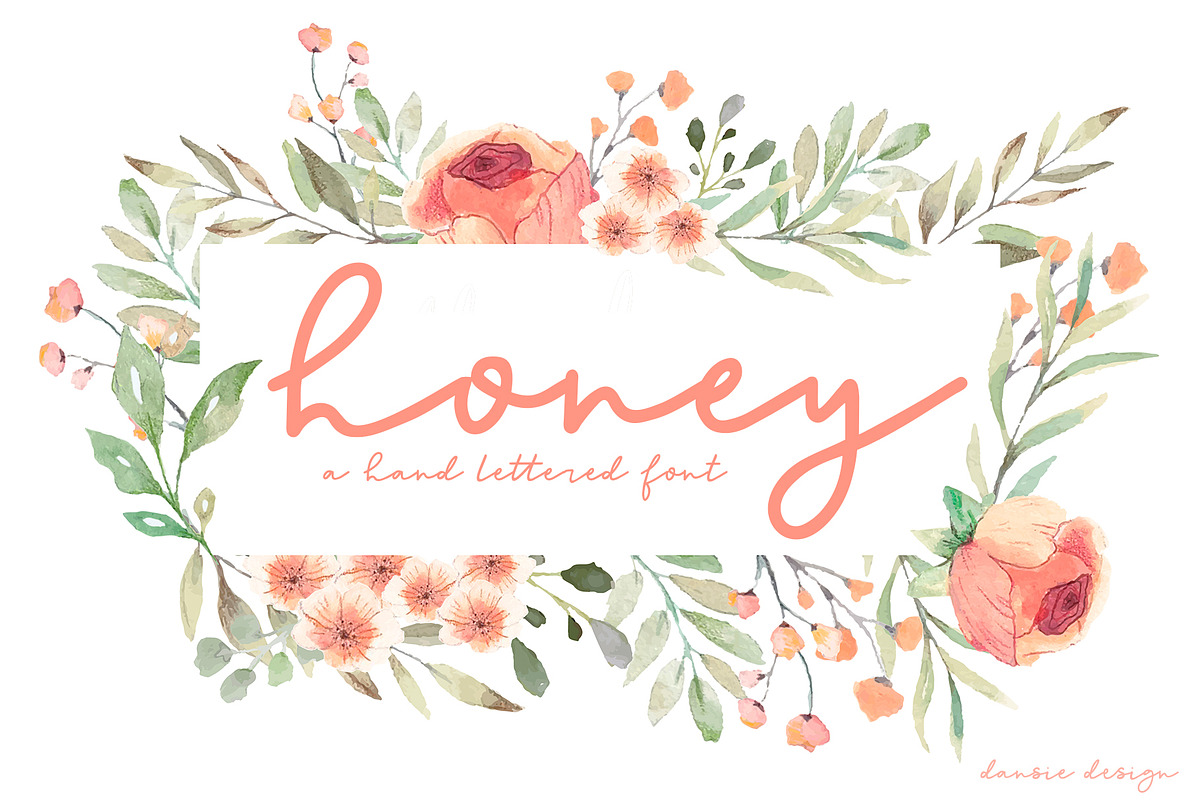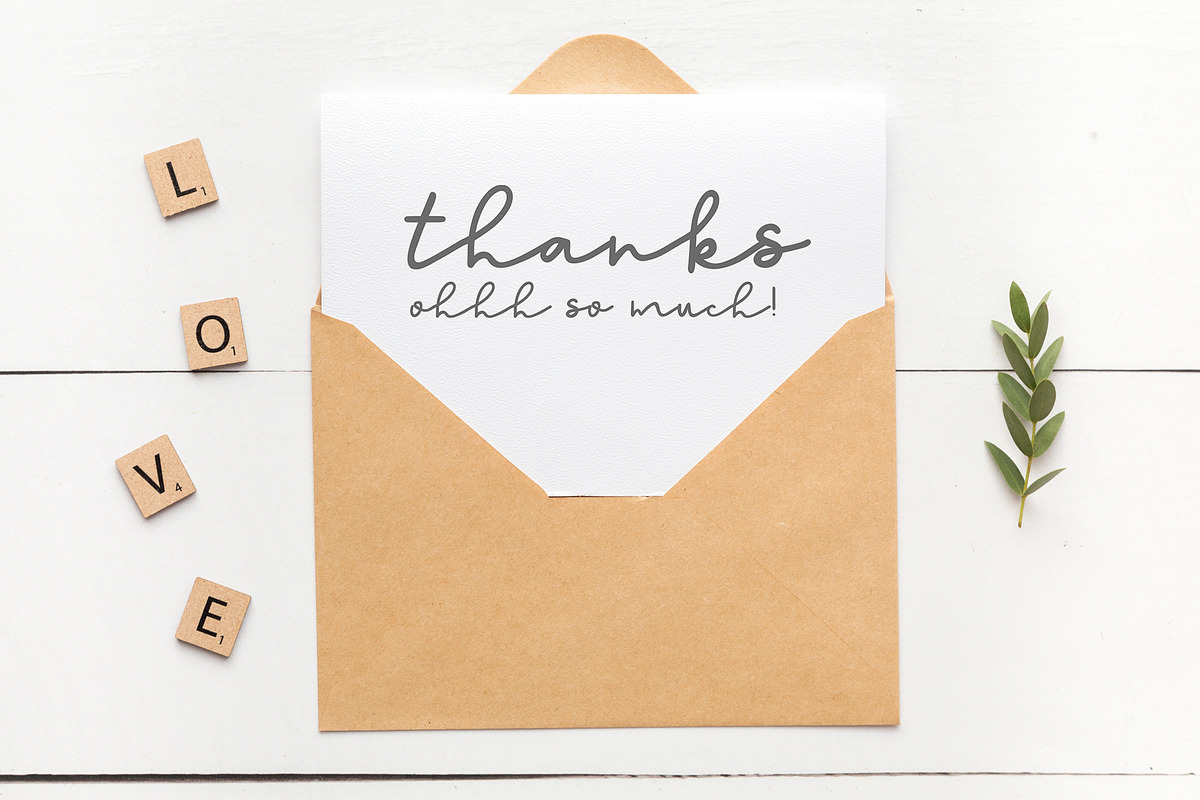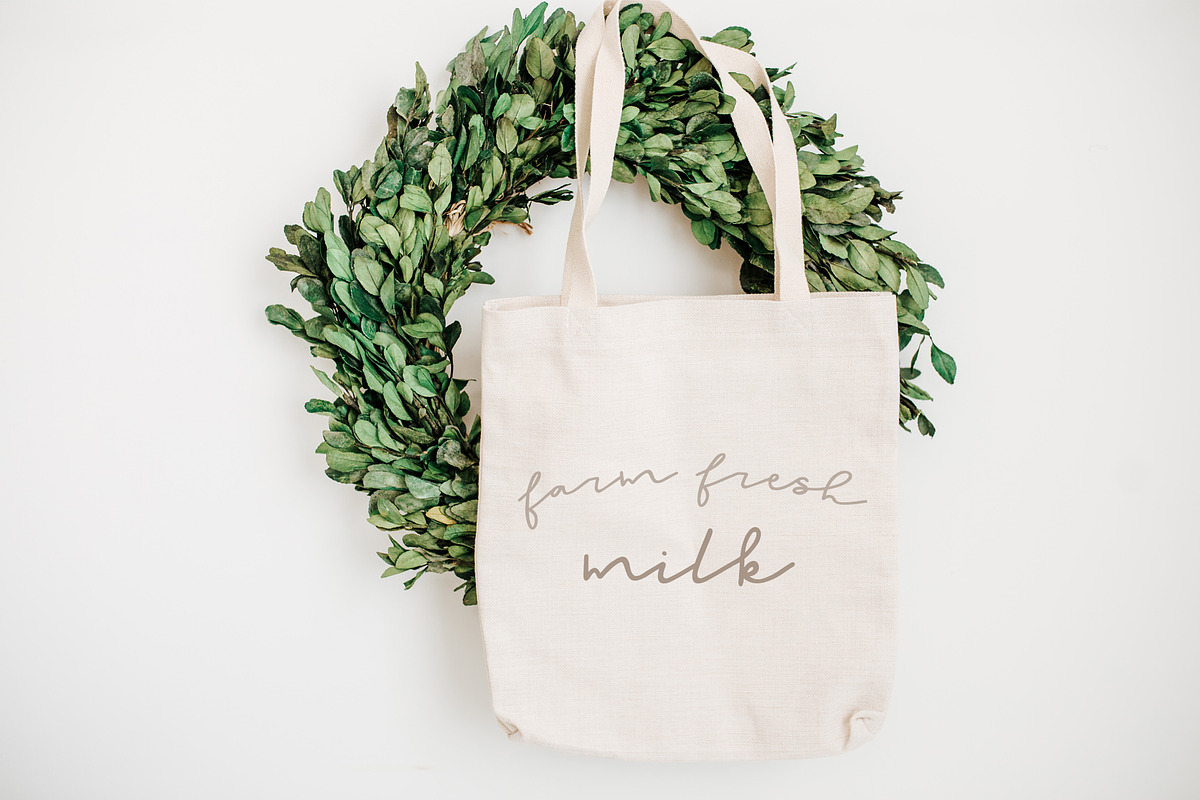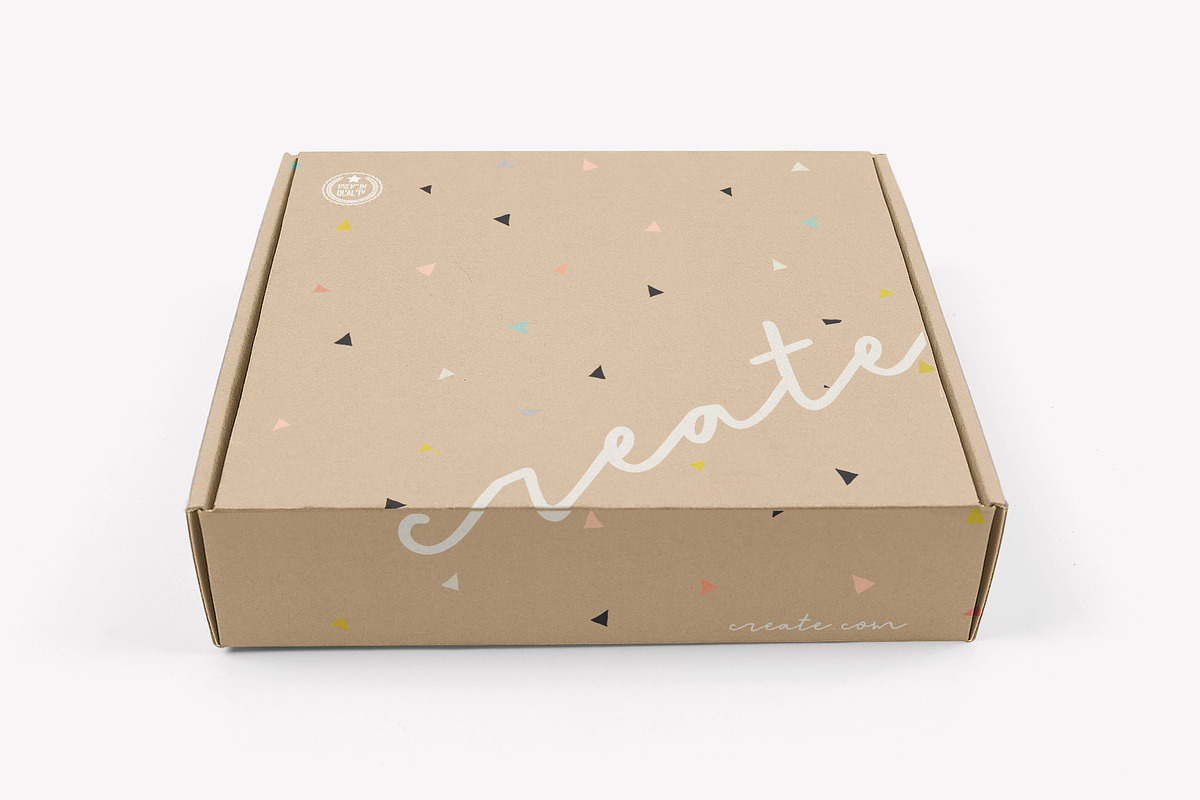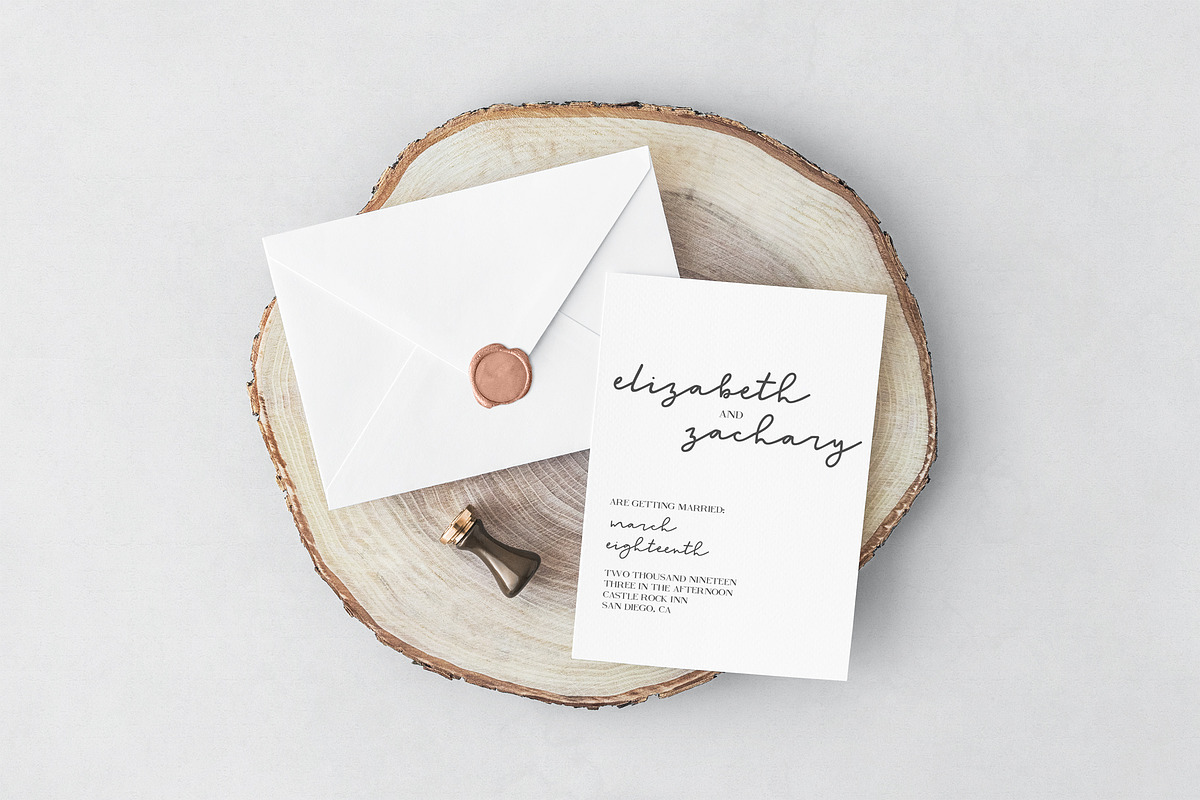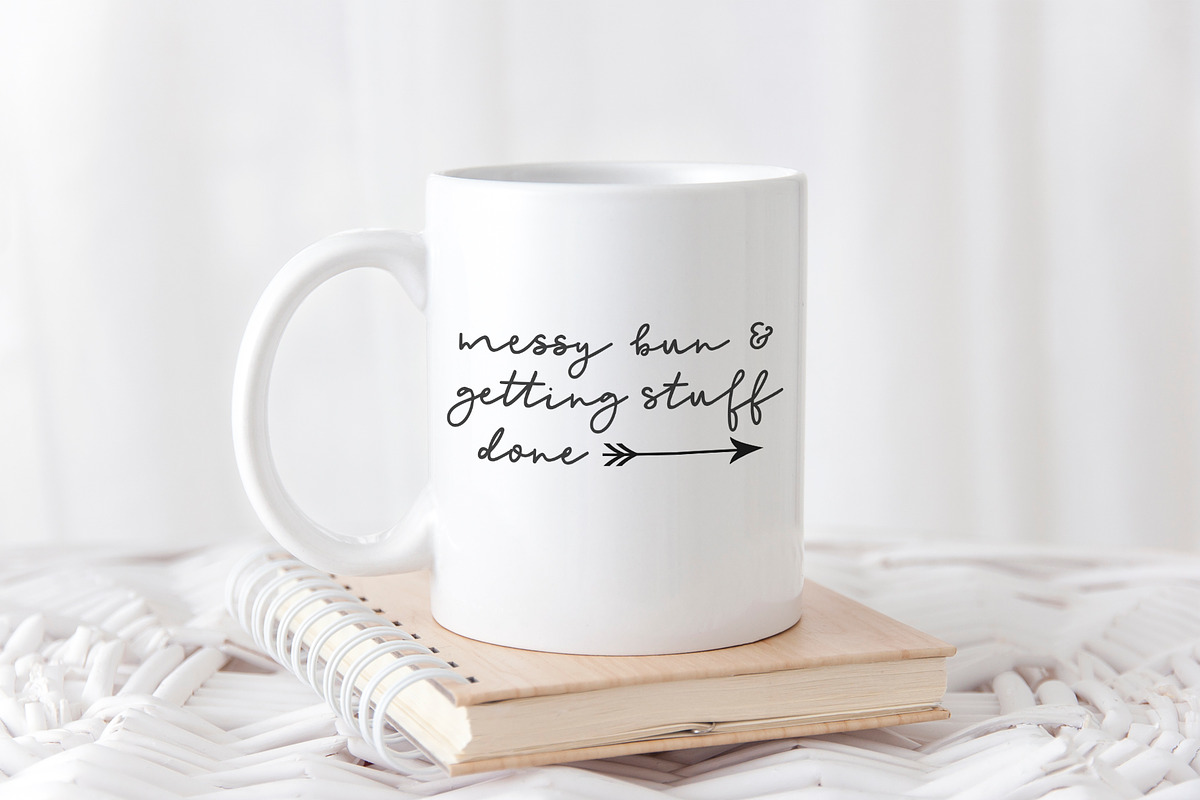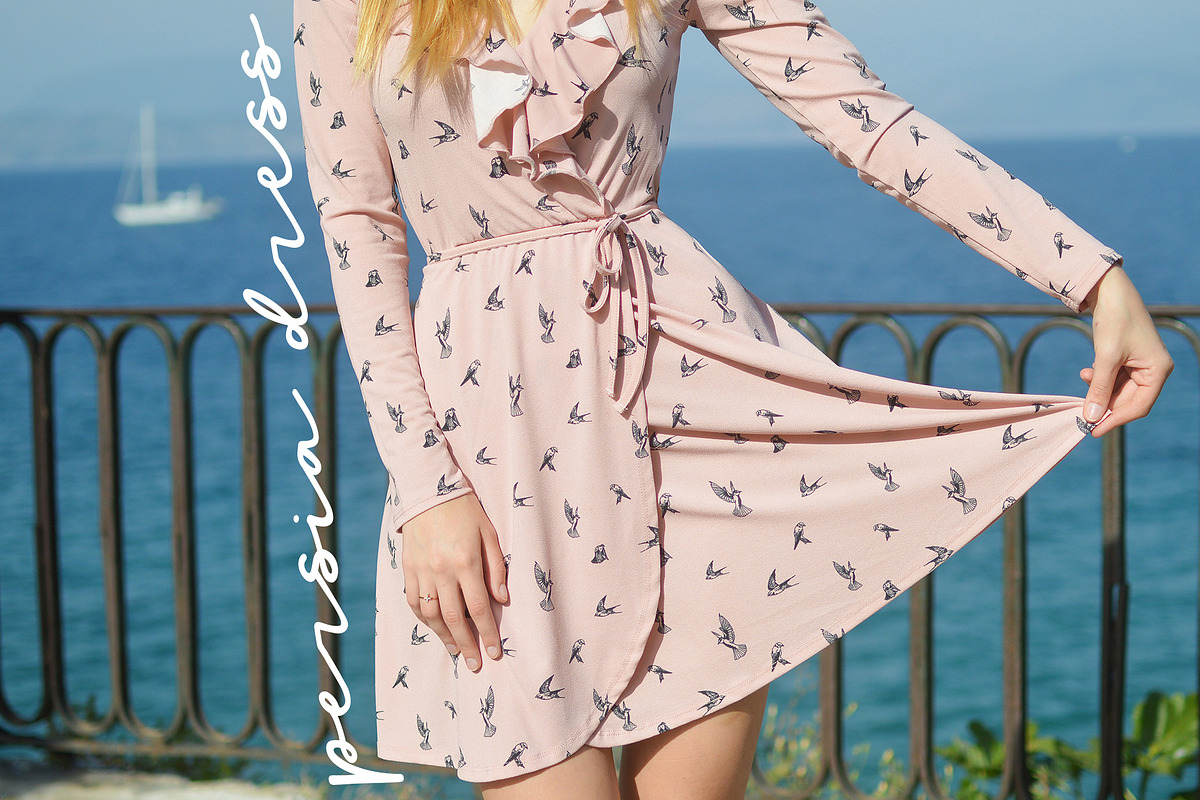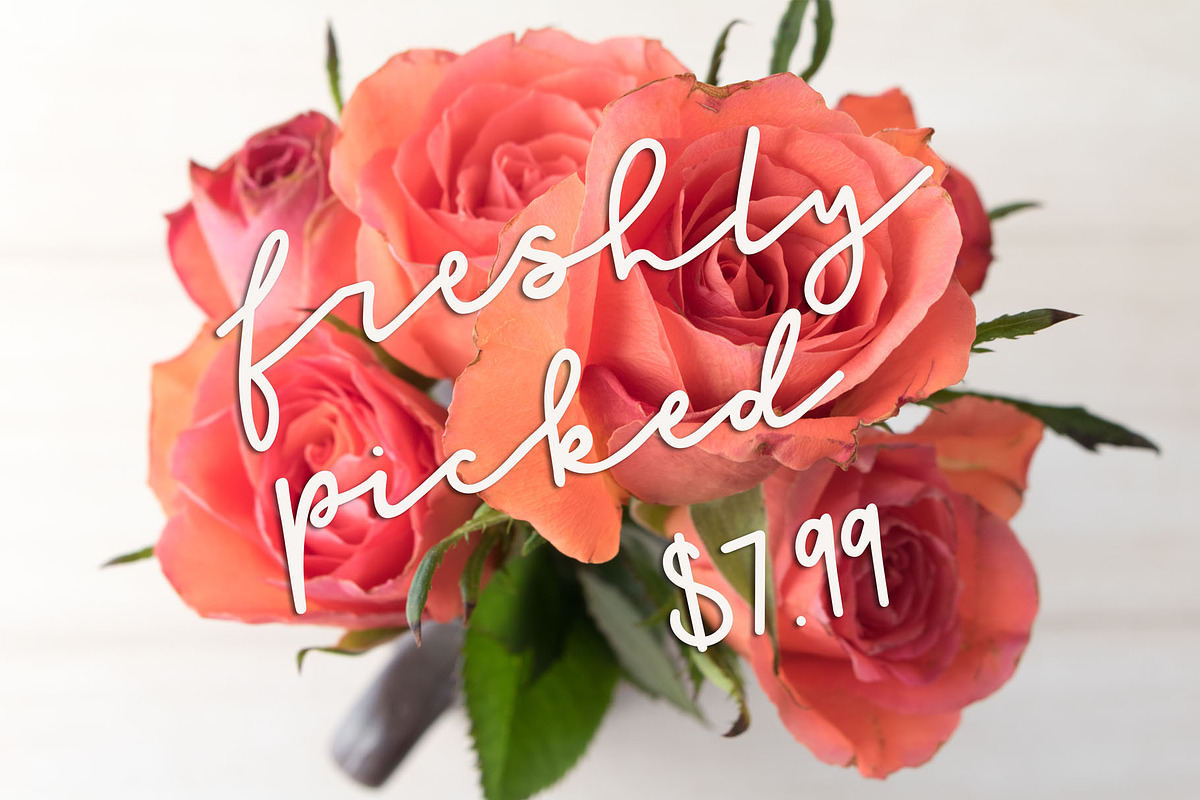
Honey Script Font
This font is sweet as Honey
This sweet script font will add a charming touch to your logos, designs, ads, social media posts, and so much more! This font style fits the southern, farmhouse feel that is trending and is so beautiful!
There are 18 ligatures included in this font to give it a more hand written feel. Ligatures are letters that are mindfully connected together to form a more natural, non-font like, feel!
-er, it, or, pp, ss, bb, ee, es, ff, gg, ll, mm, nn, oo, st, th, tt, ys